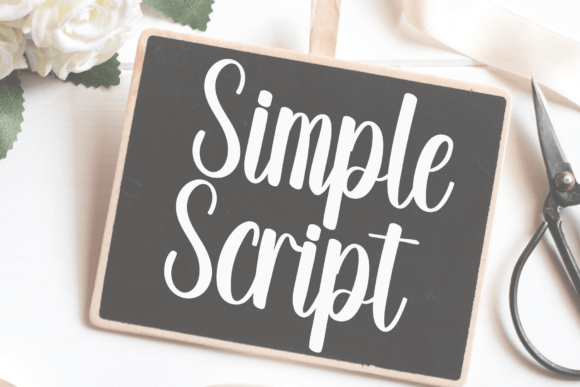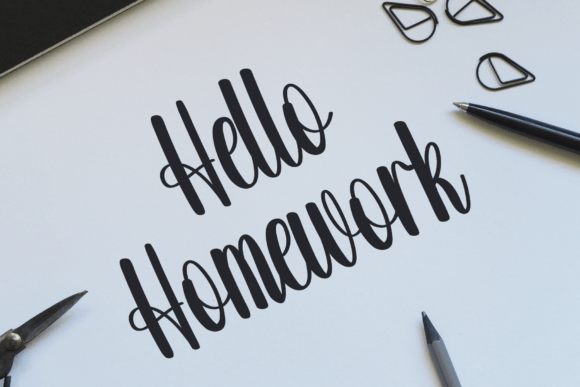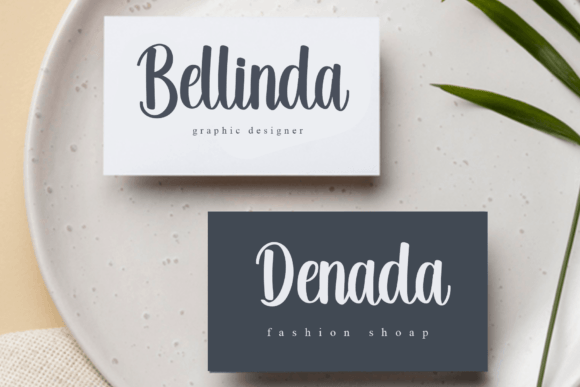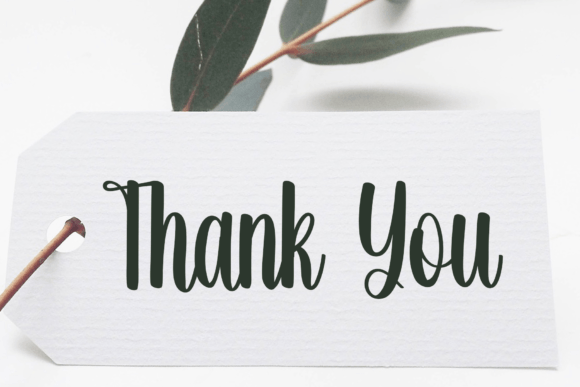
Unlocking Creativity with Drawing Font: A Comprehensive Guide
Are you a designer, artist, or crafty individual looking to elevate your creative projects? Look no further than the Drawing font, a fancy handwritten font that is sure to add a touch of elegance and sophistication to your work. In this article, we’ll dive into the world of Drawing font, exploring its features, uses, and benefits, as well as provide tips and inspiration for incorporating it into your designs.
What is Drawing Font?
Drawing font is a beautiful, handwritten typeface that is designed to mimic the look and feel of hand-drawn lettering. With its flowing lines, intricate details, and artistic flair, this font is perfect for adding a personal touch to your designs. Whether you’re working on a logo, social media graphics, movie titles, or book covers, Drawing font is sure to make your work stand out.
Key Features of Drawing Font
- Handwritten style: Drawing font features a unique, handwritten style that is both elegant and playful.
- Highly legible: Despite its artistic nature, Drawing font is highly legible, making it suitable for use in a variety of applications.
- Versatile: Drawing font can be used for a wide range of projects, from logos and social media graphics to movie titles and book covers.
Uses for Drawing Font
So, what can you do with Drawing font? The possibilities are endless! Here are a few ideas to get you started:
- Logo design: Use Drawing font to create a unique and memorable logo for your brand or business.
- Social media graphics: Add a touch of personality to your social media graphics with Drawing font.
- Movie titles: Create eye-catching movie titles and posters with Drawing font.
- Book covers: Use Drawing font to create beautiful and eye-catching book covers.
Benefits of Using Drawing Font
So, why should you use Drawing font in your designs? Here are just a few benefits:
- Adds a personal touch: Drawing font adds a personal touch to your designs, making them more relatable and engaging.
- Stand out from the crowd: With its unique and artistic style, Drawing font can help your designs stand out from the crowd.
- Enhances creativity: Drawing font can help stimulate your creativity and inspire new ideas.
Tips for Using Drawing Font
Here are a few tips for getting the most out of Drawing font:
- Experiment with different colors: Try out different colors and color combinations to add depth and interest to your designs.
- Play with font sizes: Experiment with different font sizes to create visual hierarchy and emphasis.
- Combine with other fonts: Try combining Drawing font with other fonts to create a unique and interesting look.
- Use it sparingly: Use Drawing font sparingly to avoid overwhelming your designs.
- Join design communities: Join online design communities like Behance, Dribbble, or Reddit’s r/design to connect with other designers and get feedback on your work.
In conclusion, Drawing font is a beautiful and versatile font that can add a touch of elegance and sophistication to your designs. With its flowing lines, intricate details, and artistic flair, this font is perfect for designers, artists, and crafty individuals looking to elevate their creative projects. Whether you’re working on a logo, social media graphics, movie titles, or book covers, Drawing font is sure to make your work stand out. So why not give it a try and see what amazing things you can create?